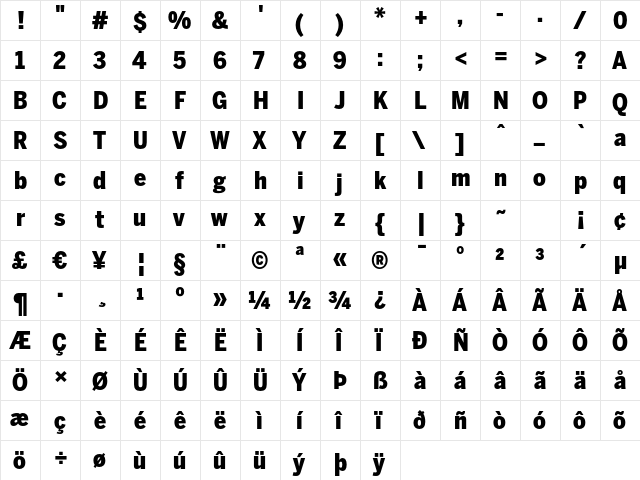
BentonSans Cond Black Regular
| Foundry | The Font Bureau, Inc |
| Designer | Cyrus Highsmith, Tobias Frere-Jones, and Font Bureau |
Design Context for BentonSans Cond Black Typeface
BentonSans Cond Black offers clean, dependable letterforms without strong stylistic allegiance, making it a practical choice for designers who need flexibility. The condensed width makes it efficient for tight spaces without sacrificing legibility.
Pro Tip: Use BentonSans Cond Black in both headline and body roles to test its range before committing to a single application.